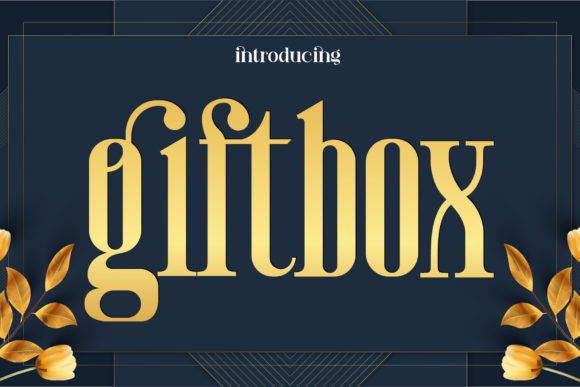
The Perfect Gift for Your Design Projects: Giftbox Font
Have you ever been browsing through a high-end fashion magazine or watching a luxury movie trailer and felt captivated by the elegant typography? That’s the magic of a well-designed font. As a designer, you know how a single font can elevate an entire project, making it stand out from the crowd.
That’s where the Giftbox Font comes in – a sophisticated, elegant serif font that’s perfect for adding a touch of luxury to your designs. Whether you’re creating a logo, book title, or magazine cover, Giftbox Font is the perfect choice to make your project shine.
With Giftbox Font, you’ll have the power to create stunning, professional designs that leave a lasting impression. Its versatility makes it a valuable addition to any designer’s toolkit, and its unique style will help you stand out in a crowded market.
Key Features of Giftbox Font
- Unique Characteristics: Giftbox Font features a modern, elegant design with a unique blend of rounded and geometric shapes, making it ideal for packaging and branding designs.
Giftbox Font Review
As a designer, I’ve had the chance to work with Giftbox Font, and I must say, it’s a mixed bag. ✨ On the positive side, the font has a beautiful, modern aesthetic that’s perfect for packaging and branding materials. The clean lines and minimalist design make it a great choice for companies looking to create a sleek, premium image.
The font is also highly customizable, with a wide range of weights and styles to choose from. This makes it easy to adapt the font to different design contexts, from product labels to website headers.
- ⚠️ Limited language support: Giftbox Font only supports Latin-based languages, which can be a limitation for companies that need to communicate in other languages.
- ⚠️ Not suitable for body text: While Giftbox Font is perfect for headlines and titles, it’s not the best choice for body text due to its lack of readability at smaller font sizes.
- ⚠️ Requires careful kerning: The font’s modern aesthetic can sometimes make it difficult to get the kerning right, which can lead to awkward spacing between letters.
Overall, Giftbox Font is a solid choice for designers who need a modern, premium font for packaging and branding materials. However, it’s not the most versatile font out there, and it requires careful consideration of its limitations.
For a more polished look, pair Giftbox with a bold font for headings and a clean sans-serif font for body text.
For a more professional look, use Giftbox as a headline font and pair it with a clean serif font for body text.
For a more cohesive look, use Giftbox consistently throughout your presentation or document.
Giftbox Font is ideal for:
1. Creative projects, such as invitations, greeting cards, and brochures.
2. Branding and marketing materials, such as logos, business cards, and letterheads.
3. Digital designs, such as social media graphics, website headers, and email newsletters.
Alternatives to Giftbox Font for Designers
Comparison to Giftbox Font: While Giftbox Font is a more decorative font, Lato is a cleaner and more minimalist alternative. Lato is a better choice for designs that require a more straightforward and modern aesthetic.